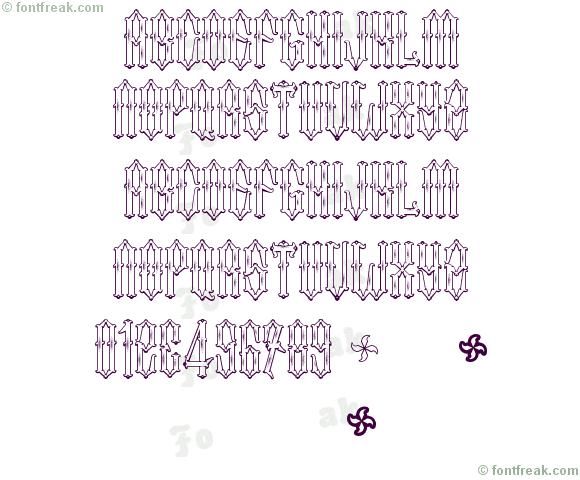
Two Fingers King Black
About Two Fingers King Black
The Two Fingers King Black font by Maelle.K is a striking display typeface that embodies a unique blend of ornate and modern design elements. This decorative font features a bold and intricate style, characterized by its pronounced stroke weight and high contrast. The letters are adorned with decorative flourishes that evoke a sense of grandeur, making it a standout choice for any creative project. The spacing between characters is thoughtfully designed to enhance readability while maintaining the font's artistic appeal.
Ideal for a variety of applications, the Two Fingers King Black font can be effectively used for wedding invitations, where its elegance can add a touch of sophistication. Additionally, it works beautifully on movie posters, giving them an eye-catching and dramatic flair. Restaurant menus will also benefit from its distinctive style, drawing attention to dish names and special offers. Graphic designers will find this font perfect for branding projects, as it communicates a unique identity that resonates with audiences. Content creators can leverage its striking appearance in promotional materials, social media graphics, or merchandise designs.
What sets the Two Fingers King Black font apart is its ability to capture attention while still being versatile enough for a range of creative uses. Its unique design elements not only enhance visual appeal but also convey a sense of style and personality, making it an excellent choice for anyone looking to elevate their design work.